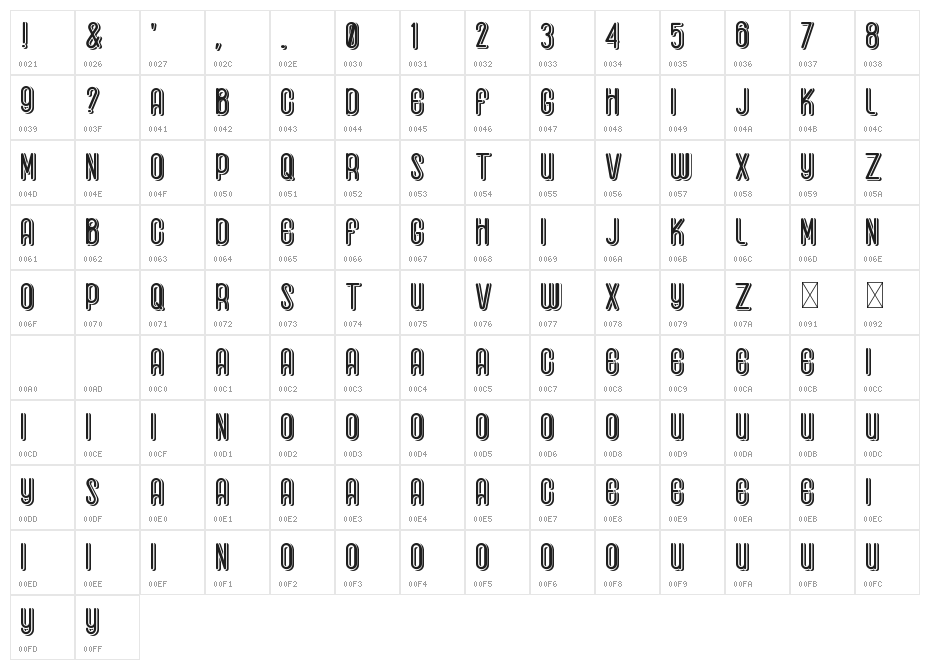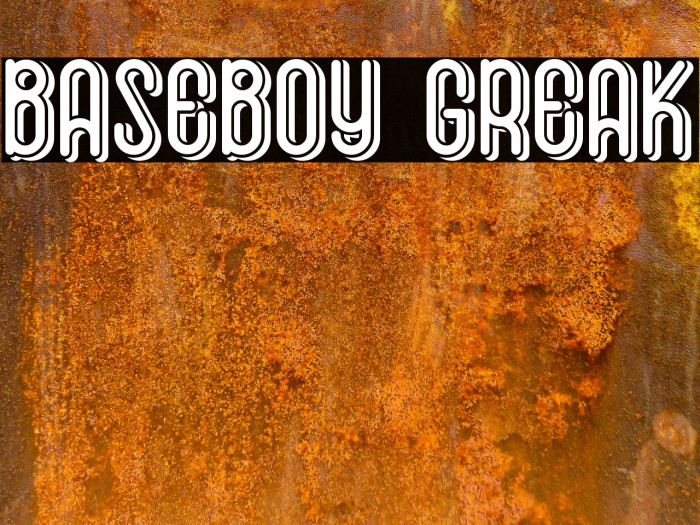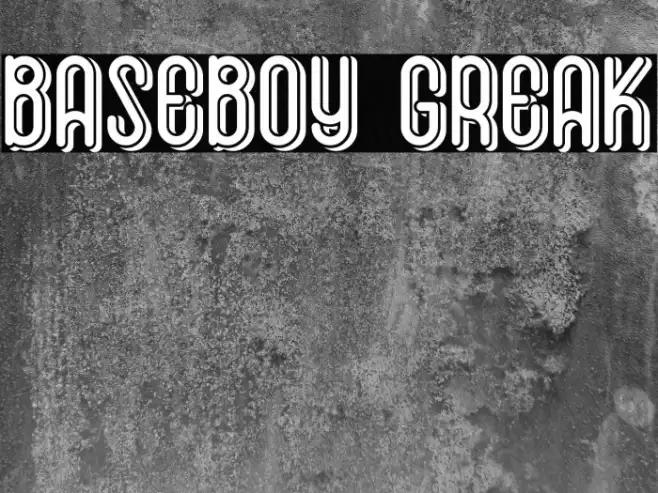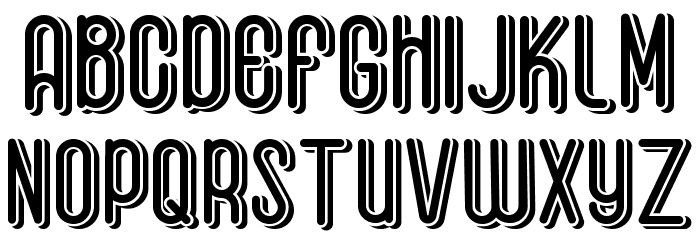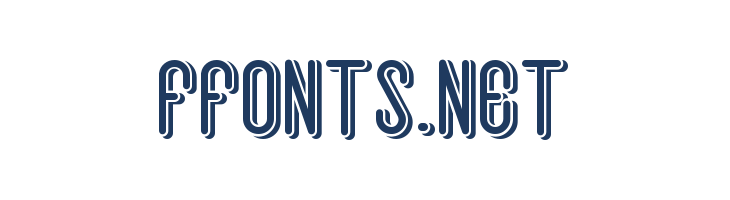
Baseboy Greak Font
Baseboy Greak Description
This font features a bold, decorative style with a distinct outline that gives it a three-dimensional effect. The characters are uppercase and have a playful, retro vibe, reminiscent of vintage signage or classic arcade games. The strokes are thick and consistent, with a slight curvature that adds to its unique charm. The font is highly legible and makes a strong visual impact, making it ideal for attention-grabbing designs. Its boldness and decorative nature make it suitable for projects that require a standout typeface.
| Overall Style | Vintage |
| Proposed Projects | Ideal for posters, logos, headlines, and any design needing a vintage or playful touch. |